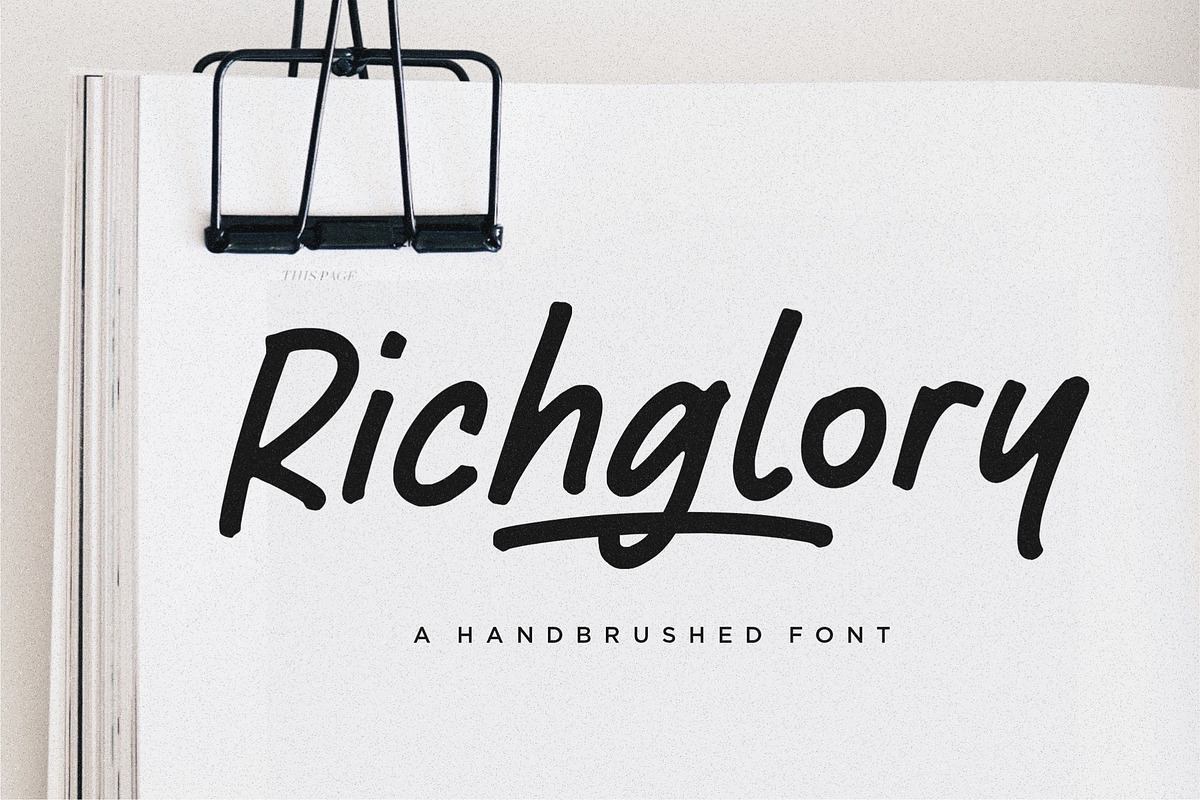
Richglory Handbrushed Font Free Download is a bold and expressive typeface that captures the essence of a hand-brushed script. With its dynamic strokes, imperfect texture, and natural flow, this font is perfect for creating vibrant logos, invitations, social media graphics, posters, and more.
The handbrushed style gives Richglory Font an authentic, artistic feel, making it ideal for creative projects that need to stand out. Whether you're designing for a creative business, crafting a fun event flyer, or adding a personal touch to your brand, this font adds a bold, brushstroke style to your work.